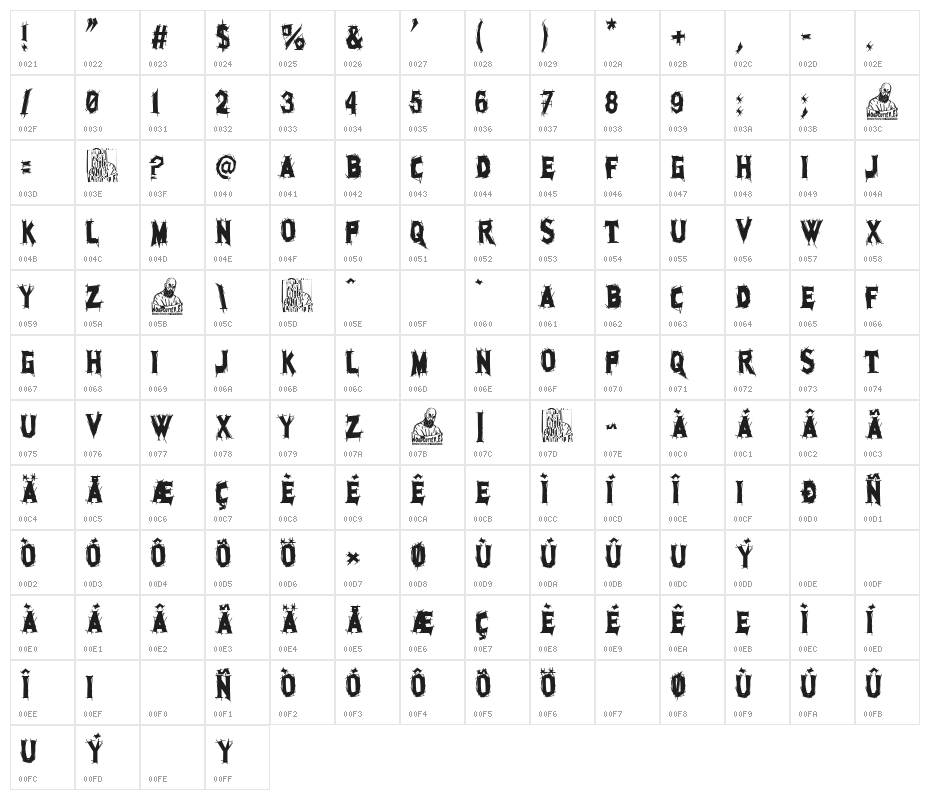
Eclectic Club Font
Eclectic Club Description
A bold, jagged, and highly decorative display font with irregular, spiky strokes that create a chaotic and energetic appearance. The letterforms are angular and uneven, with exaggerated points and rough edges, giving the font a distressed and rebellious vibe.
| Overall Style | Decorative, Grunge, Edgy |
| Use Case | Headlines, Posters, Logos, Event Graphics |
| Proposed Projects | Horror posters, Halloween invitations, punk rock album covers, edgy branding, event flyers. |